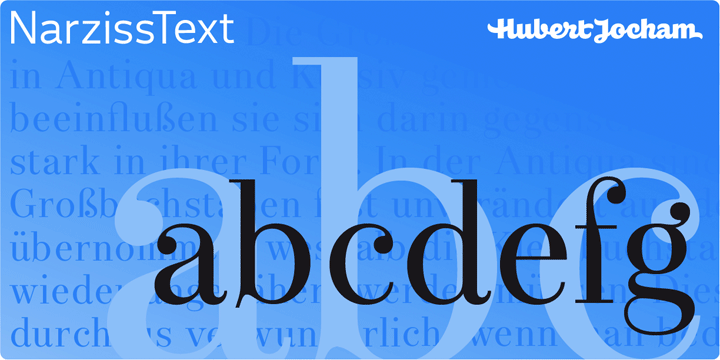
• Narziss Text
Narziss is a very popular display typeface. People really love the thin hairlines and the swirls.
But the basic idea is so strong that I decided to create a text version. The swirls of the display do not work in small sizes but the alternative drops do. So for each weight of Narziss Text, there is a Regular, an Italic and a Drops version.
Narziss Text is ideal for fashion magazines, Jewelry or perfumes and may be used in conjunction with Narziss.